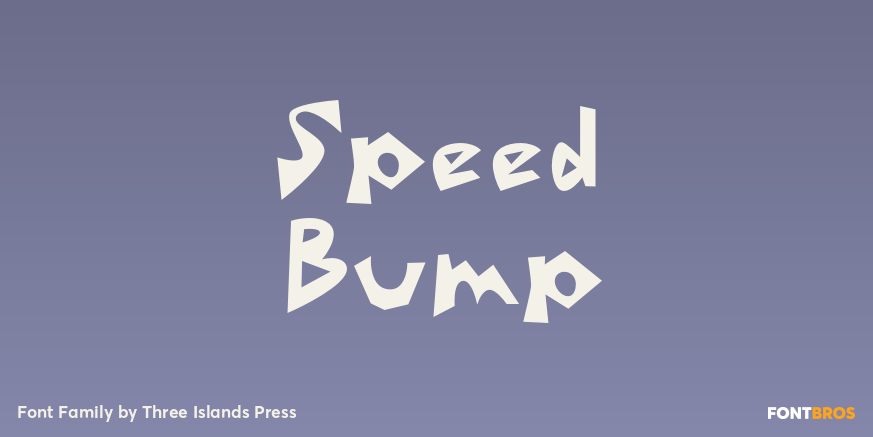
Speed Bump
About Speed Bump
I\’d toiled so long over Pumpkinseed back in \’96 that I guess I needed a good, wild ride to shake out the head cramps, or something. Whatever grabbed me, it forced me to sit down and design a typeface real fast directly in Fontographer (had never done…